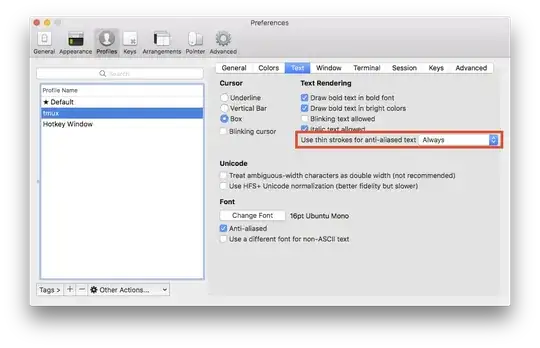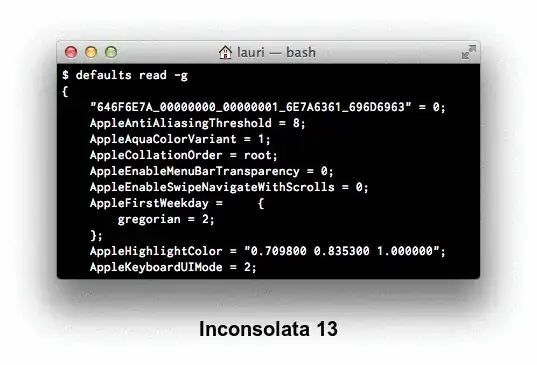
On iTerm on OSX Mountain Lion the default Monaco font is not very good for white on black text
Aliased text is ugly
Anti-aliased text is too bold
I would prefer more crisp anti-aliased font. So...
• Are there better fonts one could use?
• Is there way to tune font so that it doesn't look ugly
This is on 1920 x 1080 external monitor, so I am not sure if it does subpixel anti aliasing.
System Preferences used to allow choosing from two additional text rendering settings, light and strong, in 10.5 and earlier. I've always used the light setting. It's closer to the weight of printed text, but characters still have smoother edges or aren't as pixelated as on Windows.
You can still use the old settings by editing property lists:
The command with sudo modifies /var/root/Library/Preferences/.GlobalPreferences.plist. It's needed for windows shown by processes owned by root, like the force quit window.
Monospace fonts are often the same width at for example 13 and 14 points, but the smaller size appears lighter or to have more space around the characters:
I've posted a comparison of Cousine, Droid Sans Mono, Inconsolata, PT Mono, and Source Code Pro at Ask Different.
does this still work? I'm on 10.8.2 and I can't see any difference after running the `defaults write -g AppleFontSmoothing -int 1` command. Do I have to reboot? – Anentropic Jan 15 '13 at 15:47
@Anentropic You just have to reopen applications. If `defaults -currentHost read -g AppleFontSmoothing` exists, it has precedence over `defaults read -g AppleFontSmoothing`. – Lri Jan 15 '13 at 16:05
New iTerm (3.0.14) seems to have an option called "Use thin strokes for anti-aliased text" under "Profiles -> Text". Setting this option to "Always" makes it look much nicer on external monitors. The default value for this option was "Retina".
• This one helps a lot but its still not perfect. https://spatof.org/blog/2016/7/osx-switch-font-size-when-an-external-display-is-attached/ You can also change profiles based on external display attached or not. – Mladen Petrovic Apr 03 '17 at 14:12
Menlo is good, but with the way subpixel antialiasing works with white text on a black background, you could either inver that, or turn off "Use LCD font smoothing" in System Preferences under General.
On OS X 10.9 (Mavericks), you can get a nice crisp console font without changing the text rendering settings. Simply select Monaco 10pt font and uncheck "Antialias text" inside the Terminal.app settings (or select the included "Pro" profile, which already has these settings applied).
If you're using iTerm.app, you can do the same thing: select Monaco 10pt font and make sure "Anti-aliased" is unchecked.
OS X 10.6+ removed the font rendering settings from the System Preferences panel, but many apps now directly include the option to disable anti-aliasing, including Terminal.app and iTerm.app.
Disable "Draw bold text in bold font" (under Text tab) also really improves the looks.
defaults write com.googlecode.iterm2 AppleFontSmoothing -integer 1 makes more crisp font for iTerm.